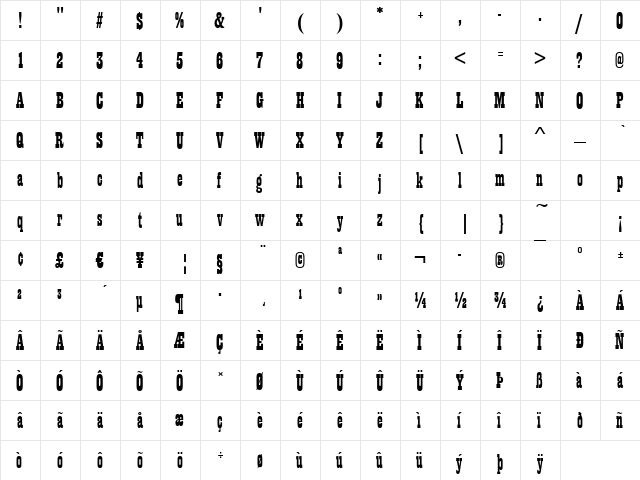
Prescott Regular
Design Context for Prescott Typeface
Prescott offers clean, dependable letterforms without strong stylistic allegiance, making it a practical choice for designers who need flexibility.
Pro Tip: Use Prescott in both headline and body roles to test its range before committing to a single application.